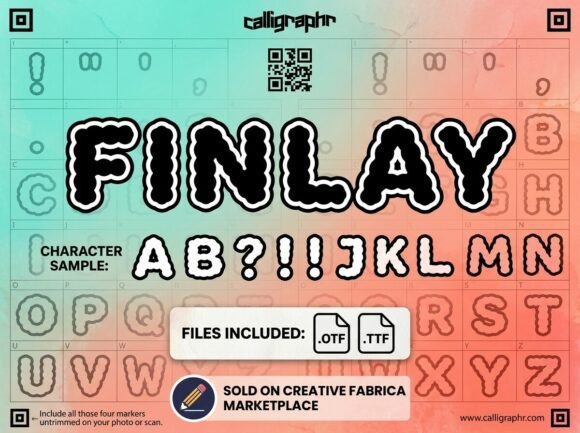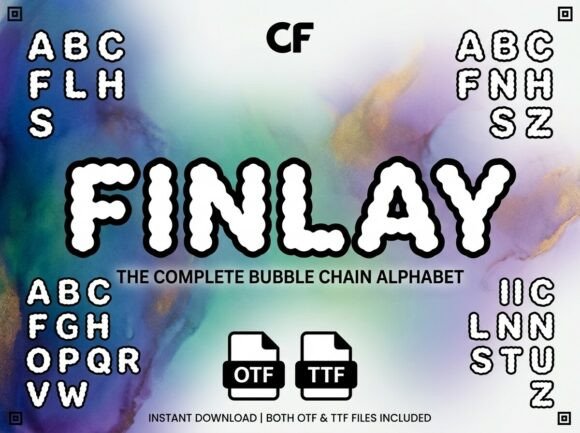
Inject a Burst of Playfulness with Finlay Font
Are you looking for a font that can add a touch of whimsy and playfulness to your creative projects? Look no further than Finlay, a charming bubble letter font bundle designed to bring a lighthearted impact to your designs. With its soft, pillowy letterforms and unique, cloud-like scalloped outline, Finlay is the perfect choice for designers and crafters who want to add a sense of joyful energy to their work.
The Unique Features of Finlay Font
Finlay font features soft, pillowy letterforms that are defined by a unique, cloud-like scalloped outline. This distinctive design gives every character a sense of airy volume, making it perfect for creating eye-catching headlines and titles. The font’s friendly, hand-drawn aesthetic makes it an exceptional choice for a variety of design projects, from children’s party invitations to whimsical nursery decor, creative classroom materials, and vibrant social media graphics.
Perfect for Youth-Oriented Brands and Lifestyle Blogs
Finlay font is particularly well-suited for designers and crafters who work with youth-oriented brands or fun lifestyle blogs. The font’s playful and whimsical design makes it perfect for creating engaging and eye-catching content that appeals to a younger audience. Whether you’re designing a website, social media graphics, or marketing materials, Finlay font is sure to bring a sense of joyful energy and soft, tactile charm to your work.
Use Finlay Font for a Variety of Design Projects
The versatility of Finlay font makes it perfect for a wide range of design projects, including:
- Children’s party invitations: Create eye-catching and whimsical invitations that set the tone for a fun and playful party.
- Whimsical nursery decor: Add a touch of playfulness to nursery decor with Finlay font, perfect for creating custom wall art, bedding, and curtains.
- Creative classroom materials: Make learning fun with Finlay font, perfect for creating engaging and interactive classroom materials, such as posters, worksheets, and activity sheets.
- Vibrant social media graphics: Add a burst of energy to your social media graphics with Finlay font, perfect for creating eye-catching posts and stories that engage your audience.
Why Choose Finlay Font?
So why choose Finlay font for your design projects? Here are just a few reasons:
- Unique and playful design: Finlay font features a unique and playful design that’s sure to add a touch of whimsy to your work.
- Versatile: Finlay font is perfect for a wide range of design projects, from children’s party invitations to social media graphics.
- Easy to use: Finlay font is easy to use and can be easily integrated into your design workflow.
- High-quality: Finlay font is a high-quality font that’s designed to deliver exceptional results.
Tips for Using Finlay Font
Here are a few tips for using Finlay font in your design projects:
- Use it sparingly: Finlay font is a bold and playful font, so use it sparingly to add emphasis and impact to your designs.
- Pair it with other fonts: Finlay font pairs well with other fonts, so experiment with different combinations to find the perfect look for your design.
- Experiment with colors: Finlay font looks great in a variety of colors, so experiment with different colors to find the perfect look for your design.
In conclusion, Finlay font is a charming bubble letter font bundle that’s perfect for designers and crafters who want to add a touch of playfulness to their work. With its unique and playful design, Finlay font is sure to bring a sense of joyful energy and soft, tactile charm to your design projects. Whether you’re designing for a youth-oriented brand or a fun lifestyle blog, Finlay font is the perfect choice.